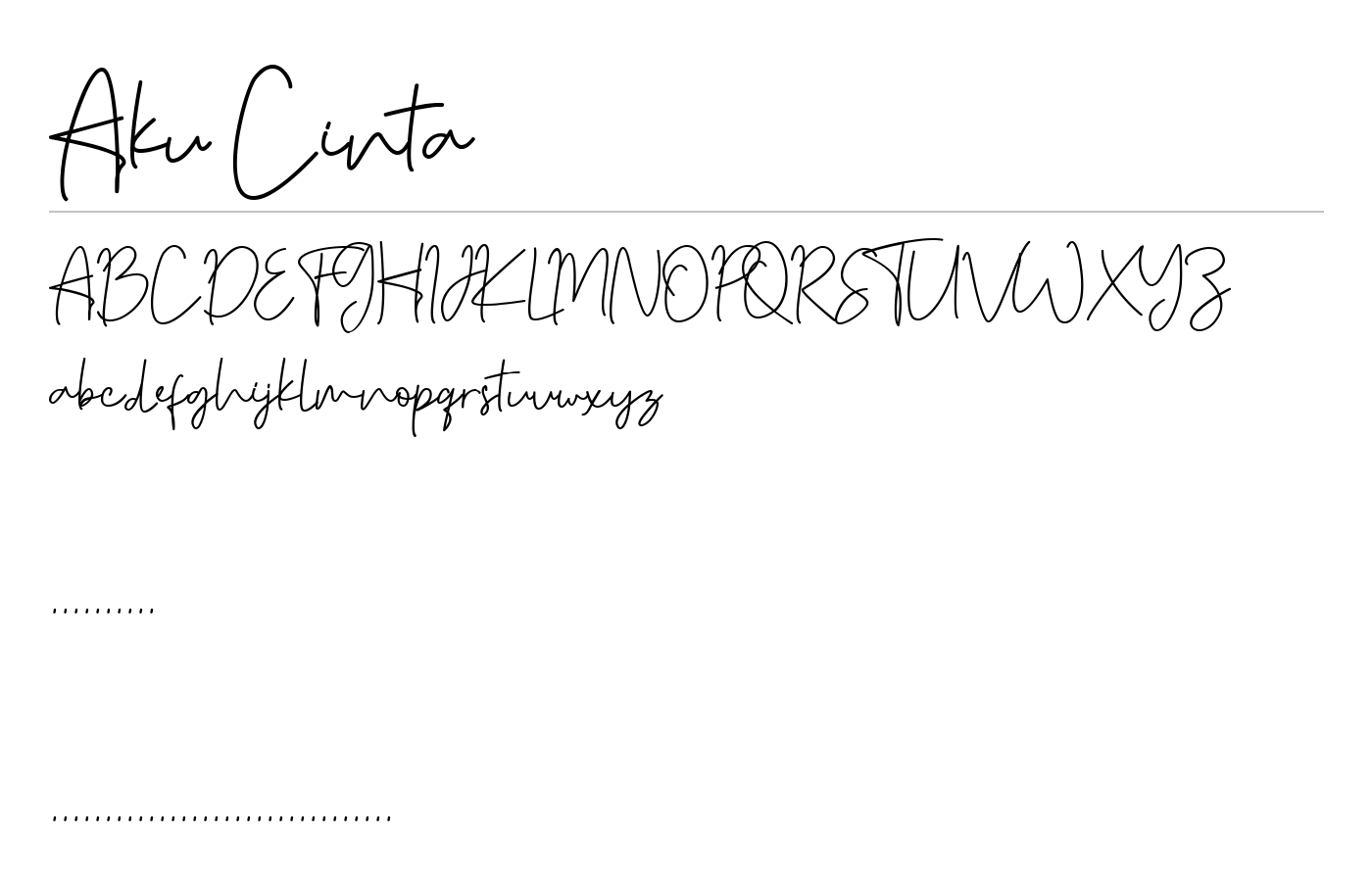
Aku Cinta is a delicate, handwritten script font characterized by its thin, airy strokes and casual, flowing style. Its tall x-height and loosely connected letters give it a personal, elegant feel that works beautifully for invitations, branding, and creative projects seeking a modern yet intimate touch. This font shines in designs where a handwritten, approachable aesthetic is desired, adding charm and warmth without overpowering.
Aku Cinta Font
About Aku Cinta Font
| Font family | Aku Cinta Font |
| Designer | Nabila Graphic Team |